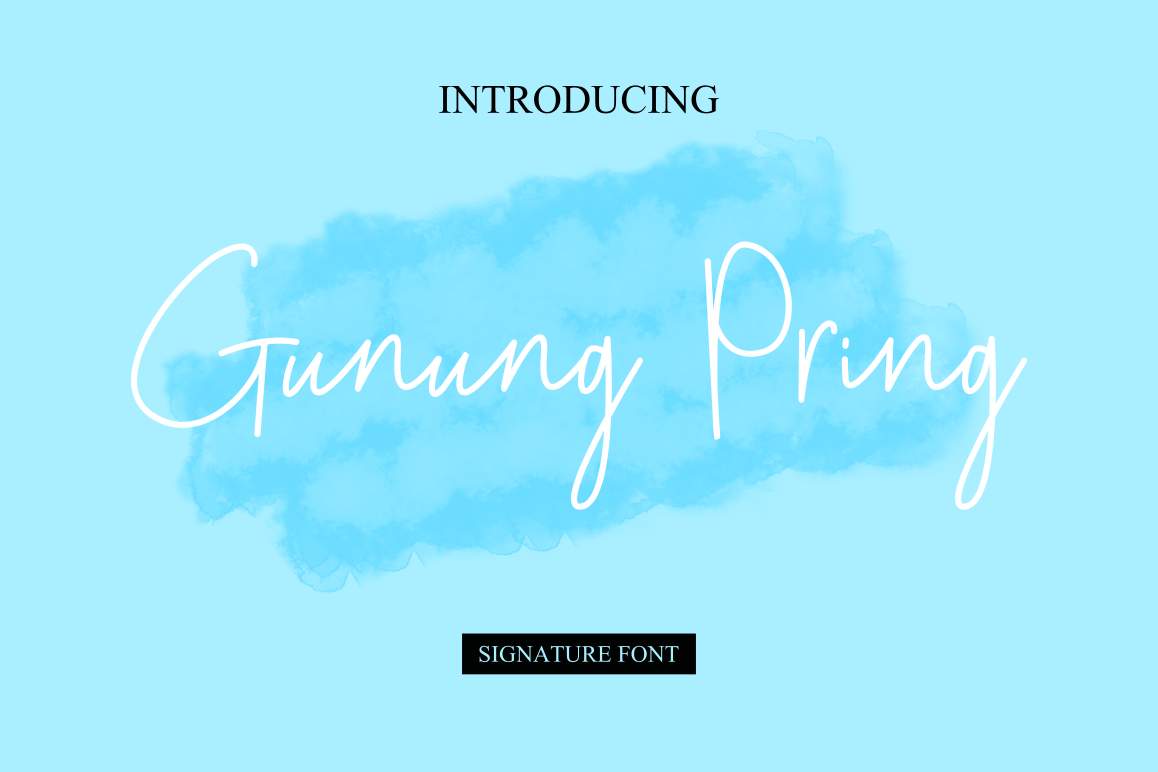
Gunung Pring
Gunung Pring- a new fresh handmade signature font.
Gunung Pring is perfectly suited to signature, branding, wedding
invitations,
quotes, magazine, clothing, website header, book cover
and more.